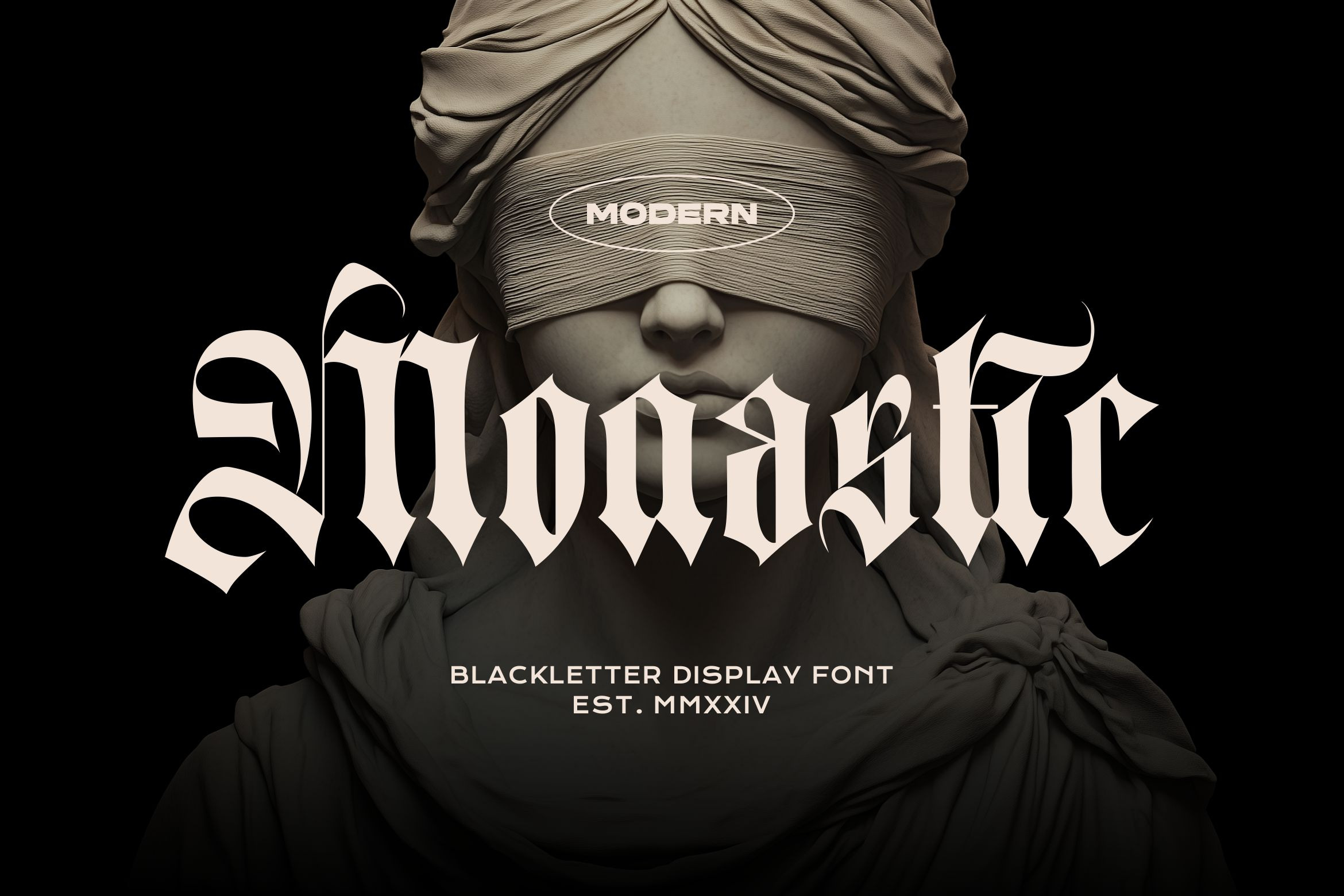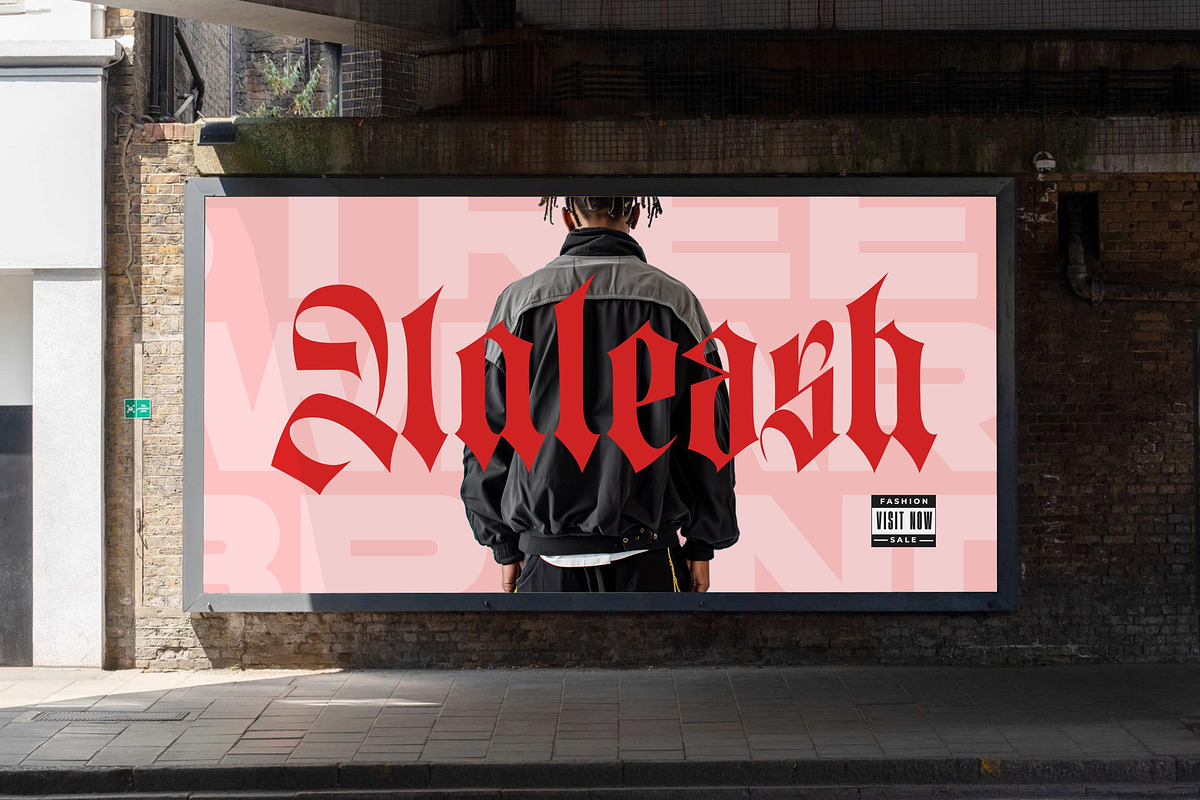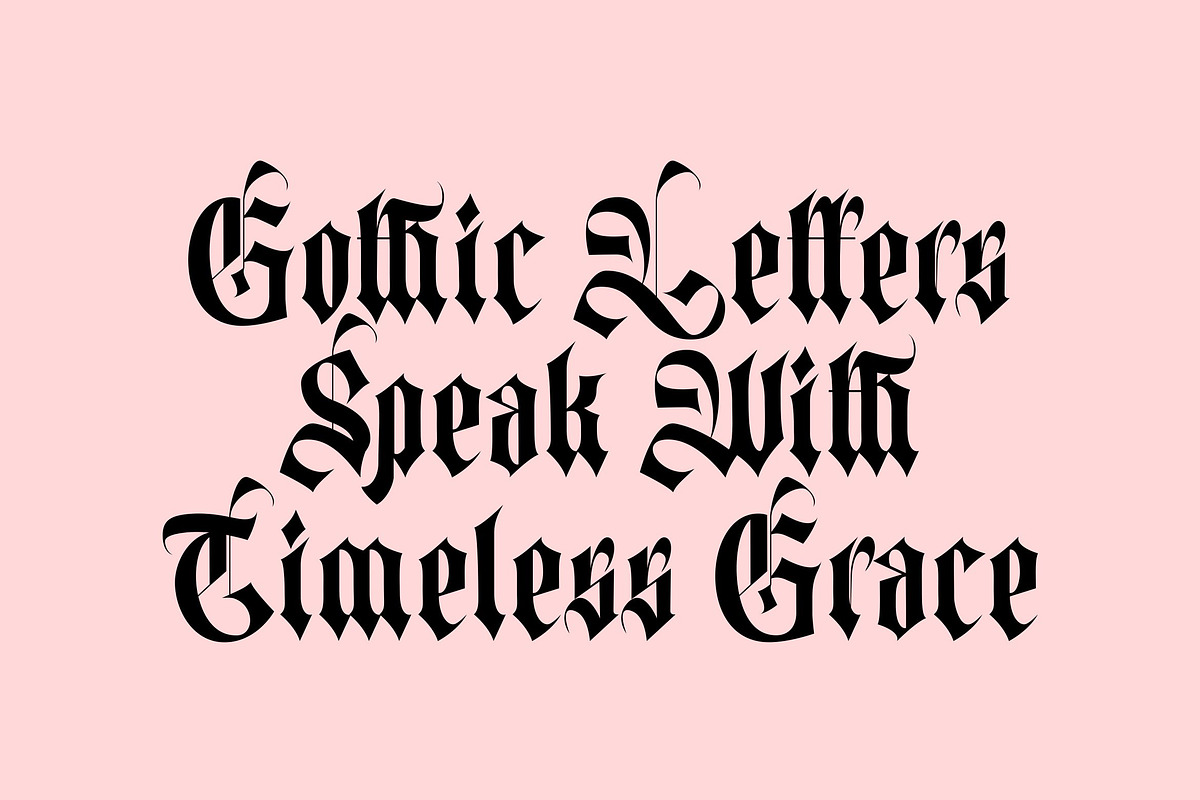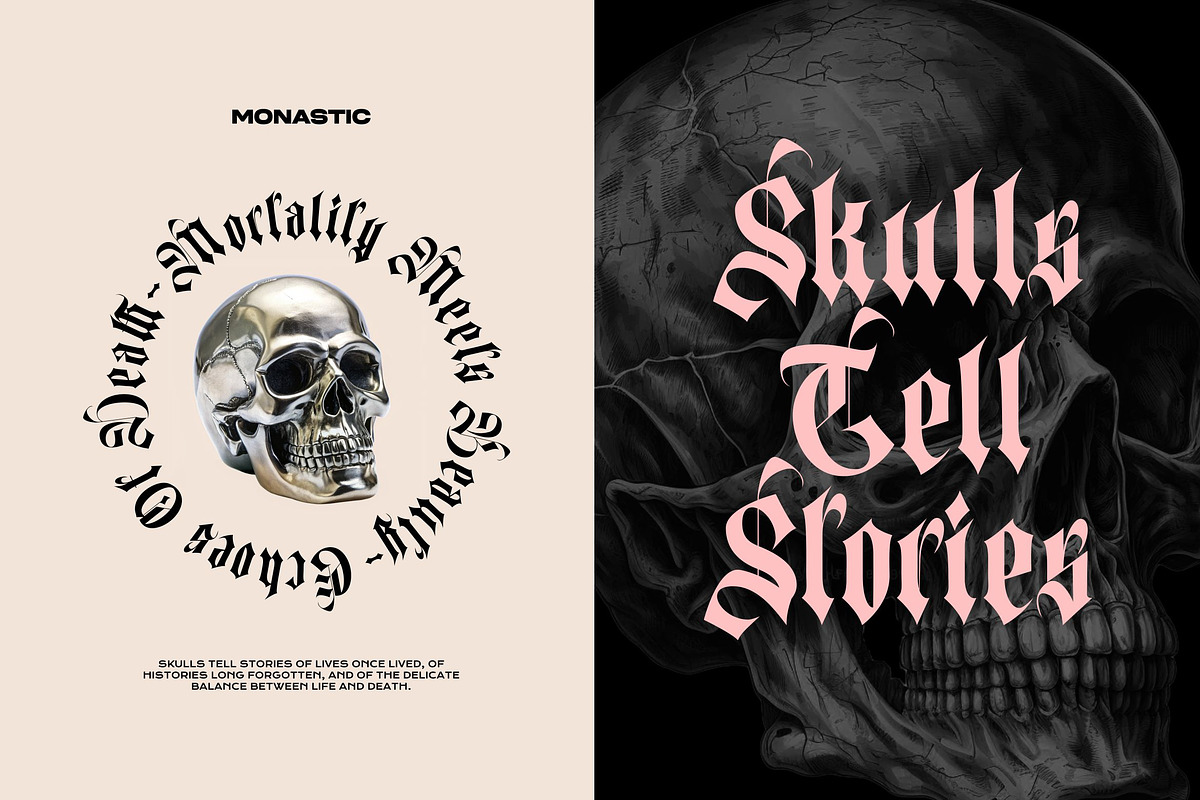
Monastic - Vintage Gothic Font
Introducing 'Monastic' is a Blackletter typeface with a traditional Gothic style. It features bold, angular strokes and dramatic contrasts between thick and thin lines, typical of medieval script. The letters have sharp edges and intricate details, creating a sense of elegance and formality. Decorative flourishes and swashes, particularly in capital letters, enhance visual appeal and give it a sophisticated, timeless look.
This font is ideal for projects that aim to evoke a sense of history, luxury, or tradition, such as in branding, invitations, editorial headlines, artistic compositions, fashion, or promotional materials that aim to convey a mix of heritage and modernity, particularly in urban or streetwear contexts.